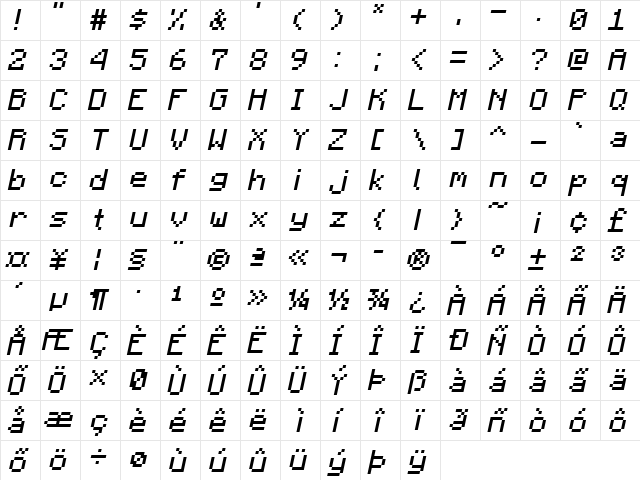
mac's Extended Minecraft Italic Free Font
mac's Extended Minecraft Italic
mac's Extended Minecraft Italic Family
Complete mac's Extended Minecraft Italic glyph index. Displaying only characters natively supported by mac's Extended Minecraft Italic font.
Design Context for mac's Extended Minecraft
mac's Extended Minecraft is a composed and adaptable typeface that performs quietly and consistently across a wide range of design contexts. The slanted form adds forward momentum and visual energy.
Pro Tip: Use mac's Extended Minecraft for emphasis, pull quotes, and subheadings where its slanted energy can add rhythm to the layout.